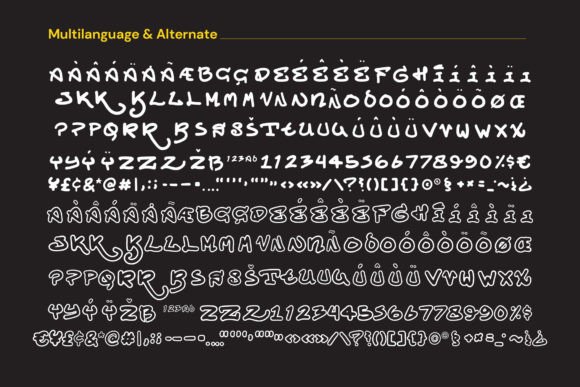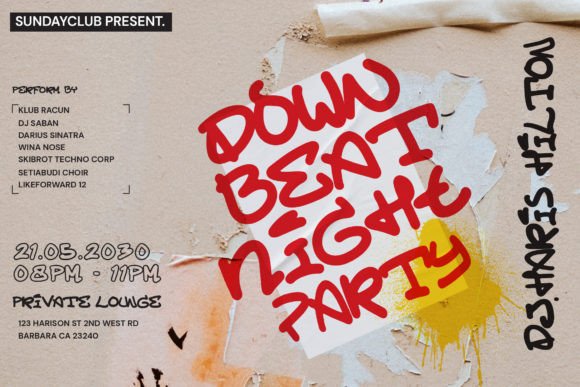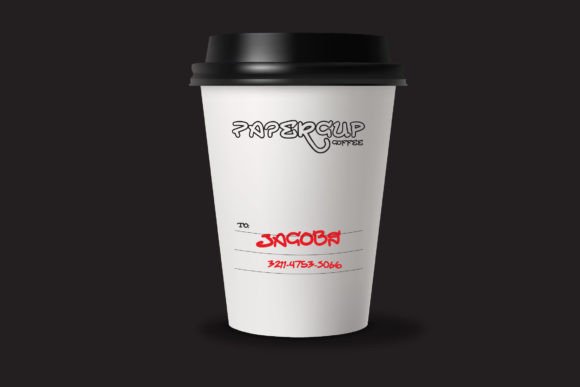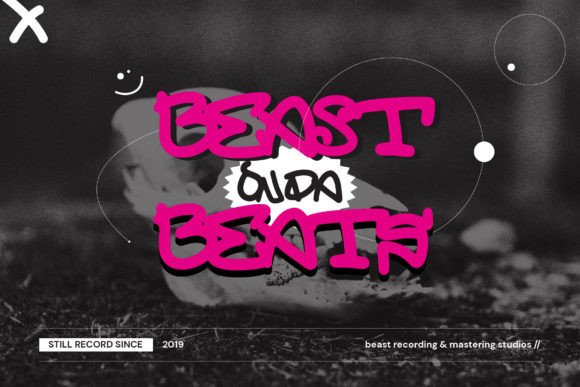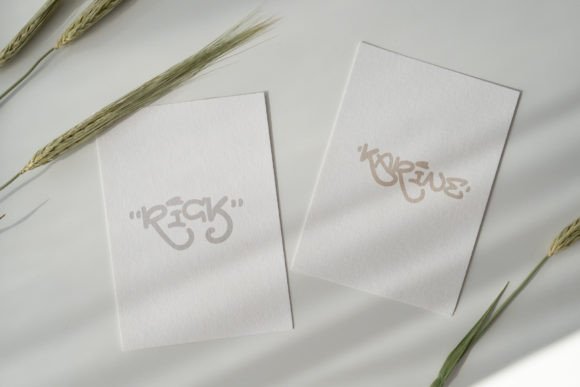
Introduction to Powpuff Font
Have you ever been brainstorming ideas for a creative project and suddenly, the perfect font pops into your head? For designers, that moment can be a game-changer. It’s the spark that sets off a chain reaction of inspiration and creativity. For me, that moment came when I stumbled upon the Powpuff Font – a bold and edgy graffiti font that exudes energy and excitement.
With its thick, uneven strokes and drips, Powpuff Font gives any design project an urban vibe that’s hard to resist. Its clean lines and rounded edges make it playful and fun, perfect for adding a touch of whimsy to your next design. Whether you’re working on a high-quality design project or just need a free download to get your creative juices flowing, Powpuff Font is an invaluable design resource.
Key Features of Powpuff Font
- Unique and playful design perfect for creative projects
- High-quality font with a transparent background, ideal for use in graphics and design
- Supports a range of languages, including Latin, Greek, and Cyrillic scripts
- Designed at a high resolution (300 DPI) for crisp and clear rendering
- Perfect for use in digital and print media, from logos and branding to graphics and packaging
Honest Review: Powpuff Font
As a designer, I’m always on the lookout for unique and high-quality design resources to elevate my creative projects. The Powpuff Font is one such find that caught my attention. Here’s my honest review.
- The font features a transparent background, allowing for seamless integration with any design.
- The high-quality design makes it perfect for a variety of creative projects, from branding to digital art.
- The font may not be suitable for all types of projects, particularly those requiring a more conservative or traditional aesthetic.
Overall, I’m impressed with the Powpuff Font’s unique design and versatility. While it may not be perfect for every project, it’s definitely a valuable addition to any designer’s toolkit. If you’re looking for a high-quality, free design resource to spice up your creative project, the Powpuff Font is definitely worth checking out.
How to Use Powpuff Font
The Powpuff Font is a free design resource perfect for creative projects that require a high-quality, playful font. With its transparent background, it’s easy to incorporate into various design platforms.
Tips for Getting the Most Out of the Powpuff Font
To maximize the use of the Powpuff Font, experiment with different font sizes, colors, and combinations to achieve the desired effect.
The Powpuff Font is suitable for various design projects, such as:
- Children’s party invitations
- Playful blog posts
- Brand logos
Alternatives to Powpuff Font
Comic Sans MS is a classic sans-serif font that is perfect for creating a playful and casual atmosphere in your design. It is a great choice for projects that require a friendly and approachable tone, such as children’s books, advertisements, or social media graphics. When to use: Casual, friendly designs. How it compares to Powpuff Font: While Powpuff Font is more cursive and whimsical, Comic Sans MS is more straightforward and simple. Download: Available for free download on Microsoft’s website.
Great Vibes Font is a modern and elegant script font that is ideal for creating a sophisticated and creative atmosphere in your design. It is a great choice for projects that require a touch of luxury and refinement, such as wedding invitations, packaging designs, or magazine layouts. When to use: Elegant, creative designs. How it compares to Powpuff Font: While Powpuff Font is more playful and childlike, Great Vibes Font is more sophisticated and mature. Download: Available for free download on DaFont website.
Pacifico Font is a beautiful and elegant serif font that is perfect for creating a calm and peaceful atmosphere in your design. It is a great choice for projects that require a touch of serenity and relaxation, such as spa websites, wellness magazines, or travel brochures. When to use: Calm, peaceful designs. How it compares to Powpuff Font: While Powpuff Font is more playful and whimsical, Pacifico Font is more refined and sophisticated. Download: Available for free download on Google Fonts website.